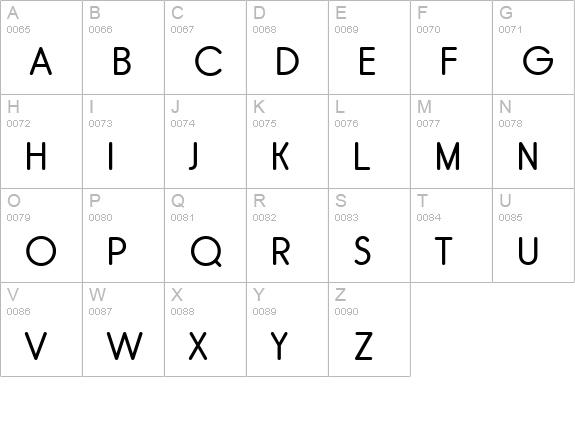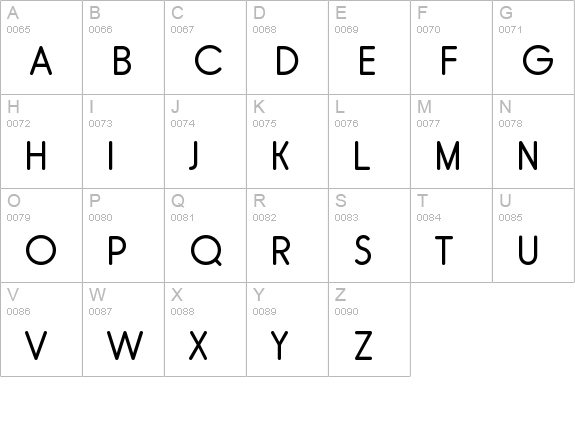
Rimouski Font Details
Rimouski font is a beautifully crafted typeface that exudes elegance and sophistication. Its sleek lines and stylish curves make it perfect for a wide range of design projects, from branding to editorial design. The versatile nature of Rimouski font allows it to be used for both headings and body text, providing a harmonious look throughout your project. What sets Rimouski font apart is not only its aesthetic appeal but also its accessibility. This stunning font is available for free download at FontsMarket.com, making it a valuable addition to any designer's toolkit. Whether you're working on a professional project or a personal endeavor, Rimouski font will elevate your design with its timeless charm and modern sensibility. Download Rimouski font today and bring a touch of sophistication to your next creative endeavor.